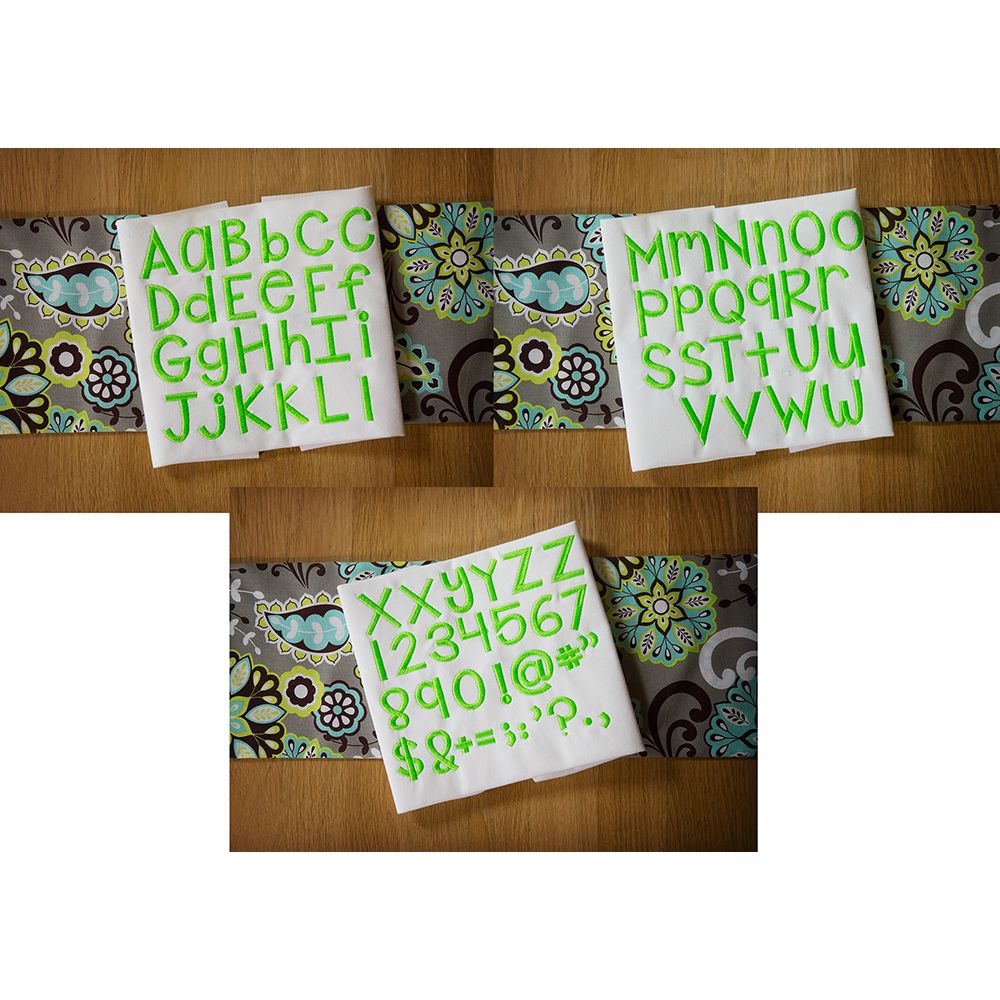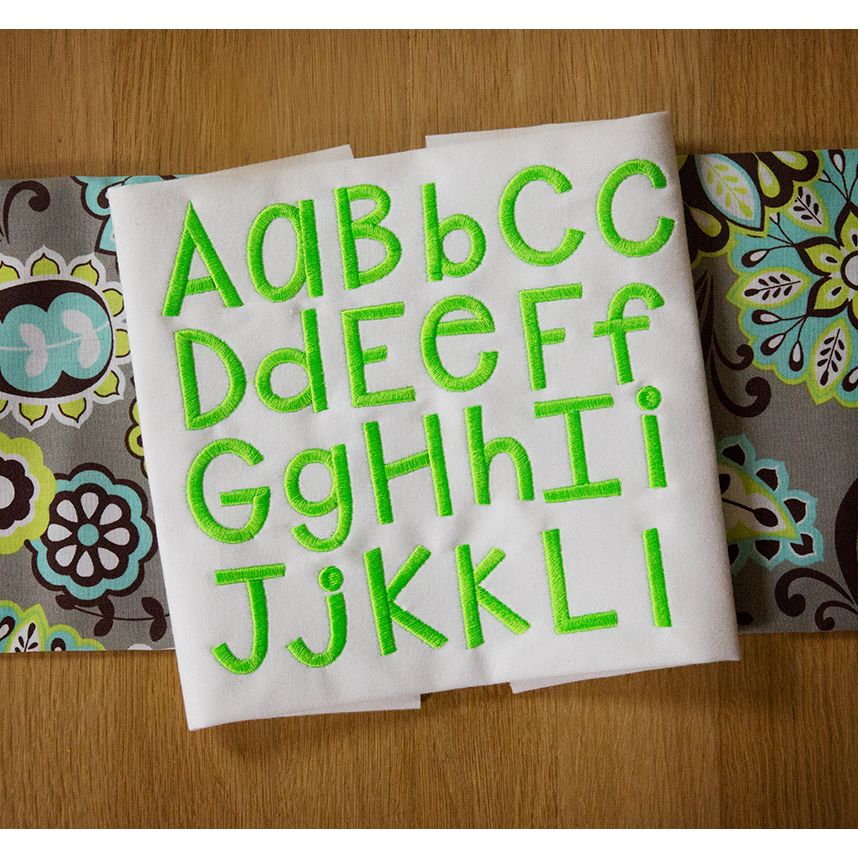
Shake It Off Satin Stitch Embroidery Font
A fun, thick, quirky print font...great for boys or girls!  All of our font alphabets are 100% manually digitized to bring you maximum stitch quality.